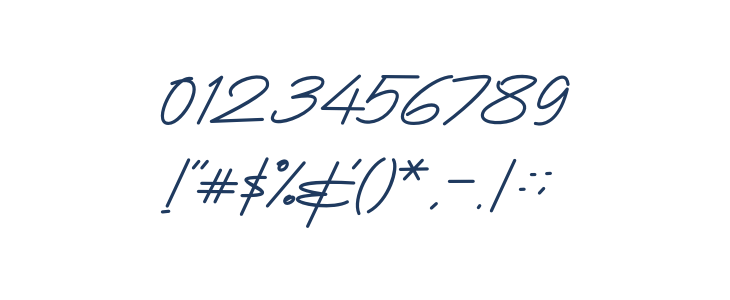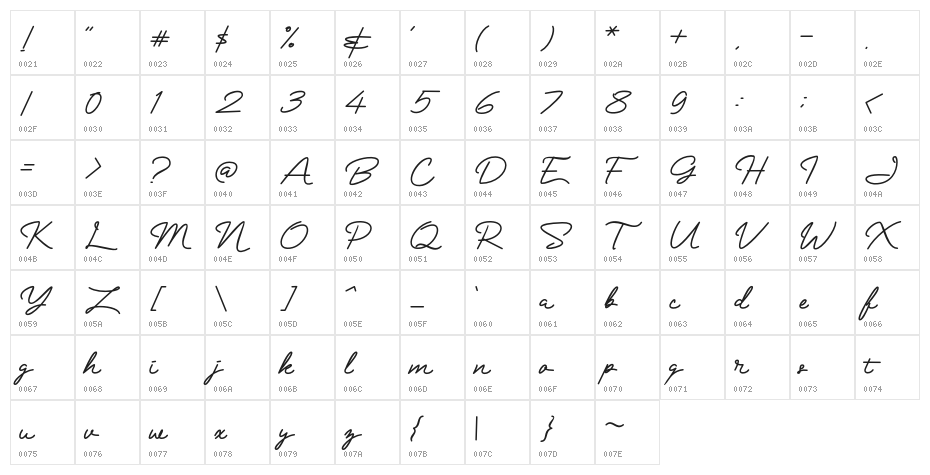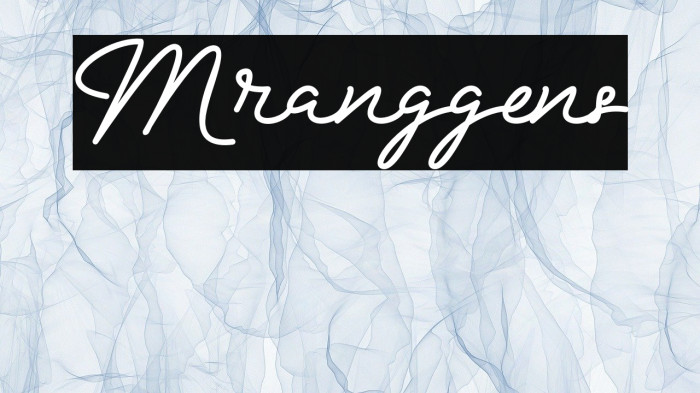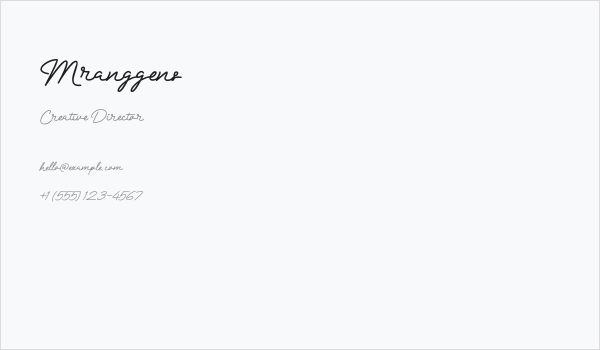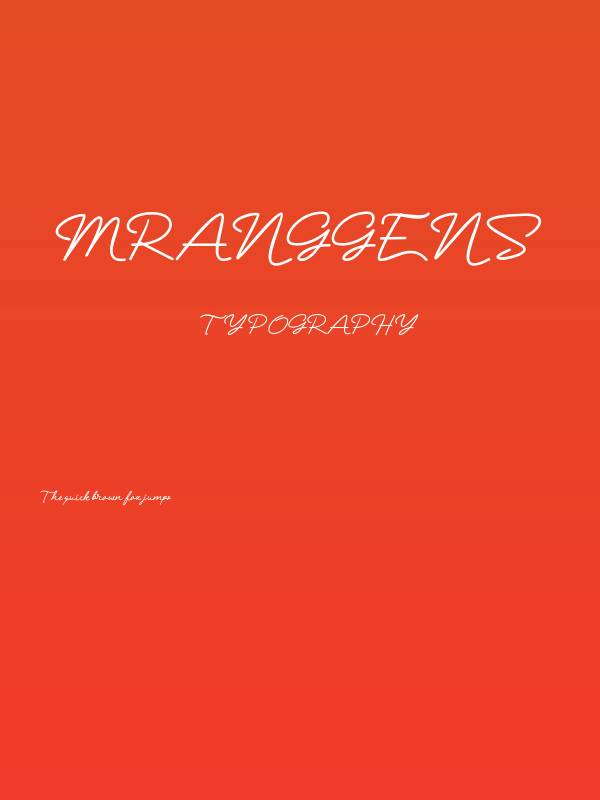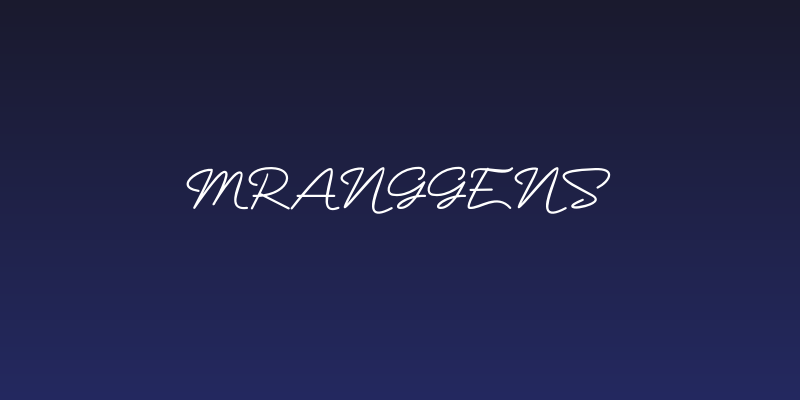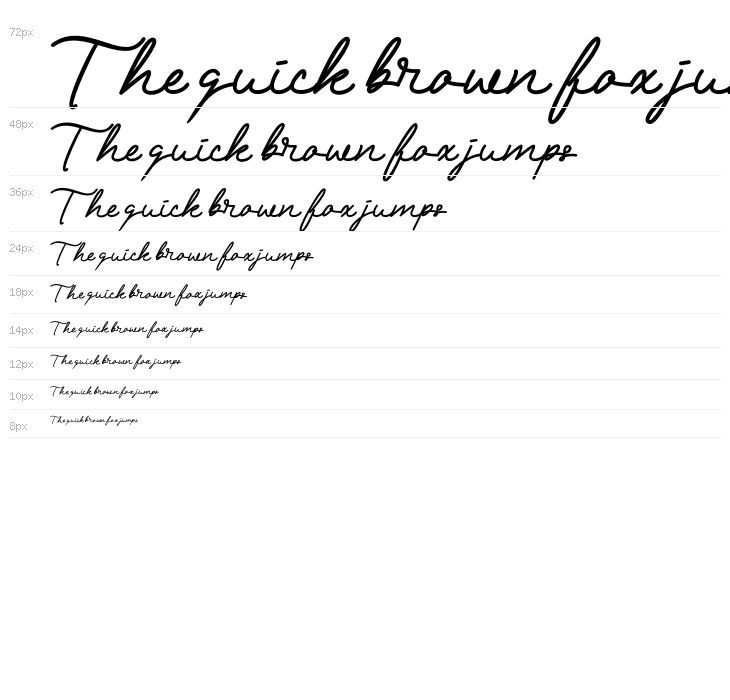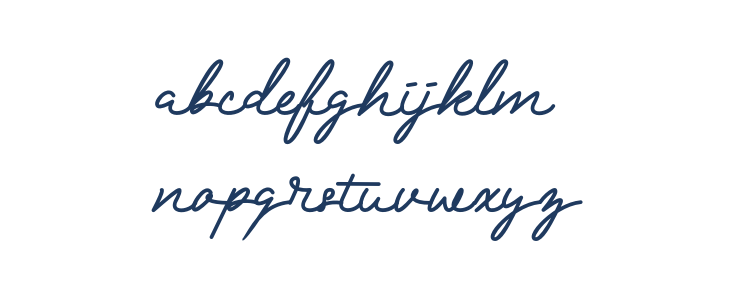
Mranggens Font
Mranggens Description
This font features a flowing, cursive style that mimics elegant handwriting. The uppercase letters are slightly slanted, maintaining a consistent height with smooth, rounded edges. The lowercase letters exhibit a graceful connection between characters, enhancing the script's fluidity. Numbers are styled to match the cursive theme, with a slight tilt and rounded forms. Special characters are seamlessly integrated, maintaining the overall aesthetic. The font's design is both sophisticated and approachable, making it suitable for a variety of applications where a personal touch is desired.
| Overall Style | Elegant, Handwritten |
| Proposed Projects | Ideal for wedding invitations, greeting cards, personal branding, and elegant packaging designs. |